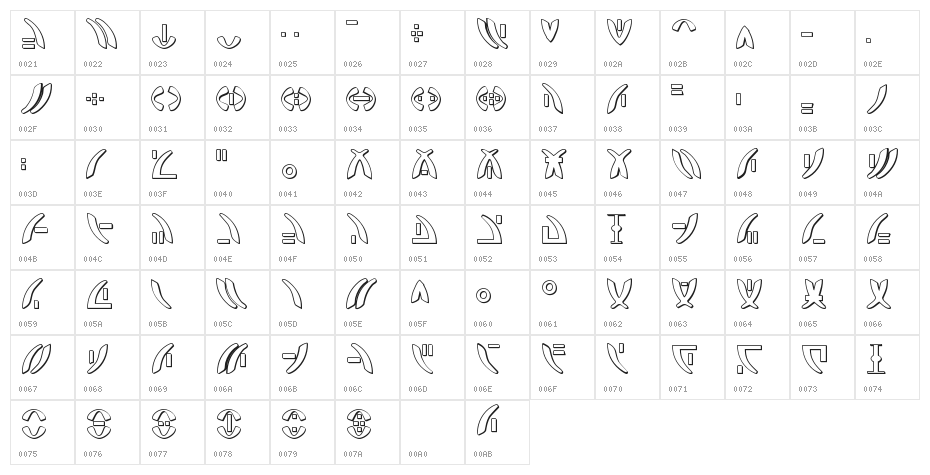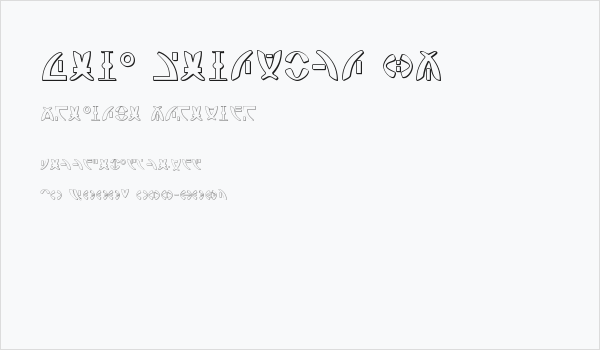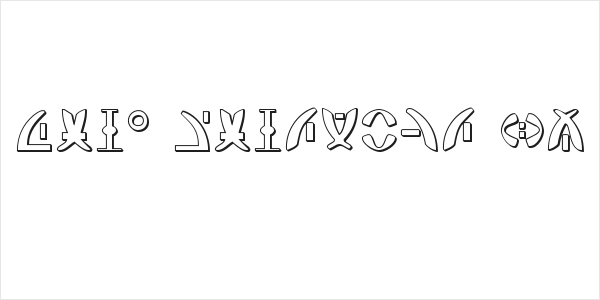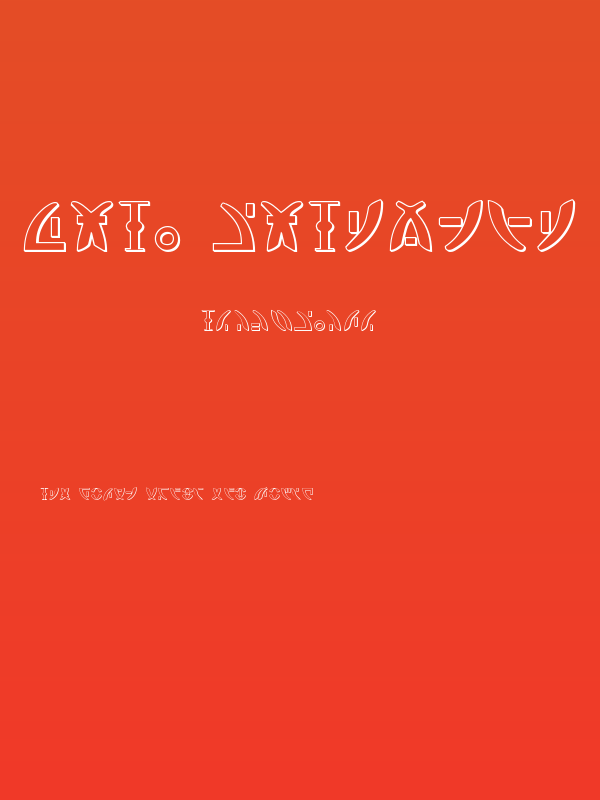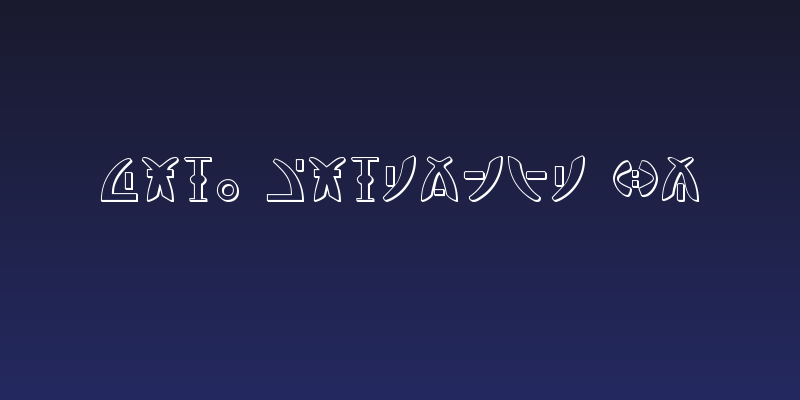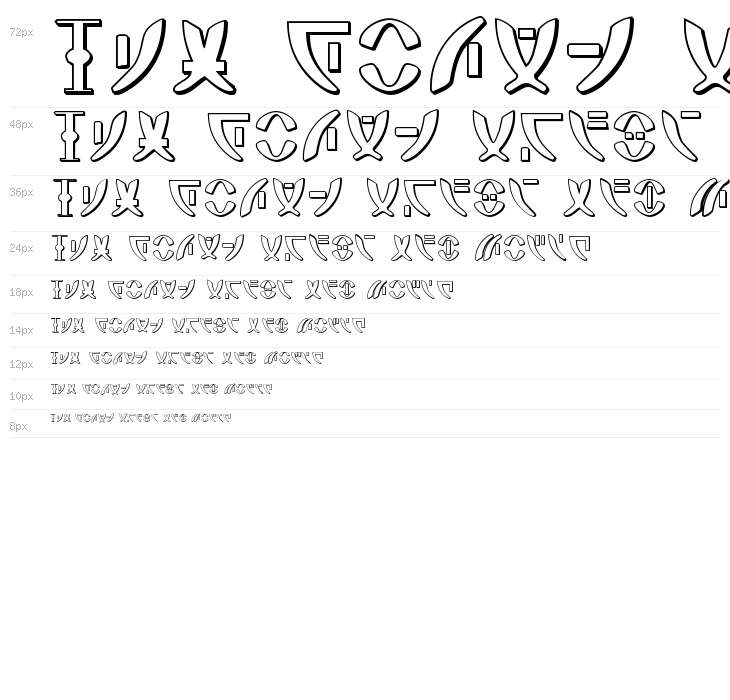
Zeta Reticuli 3D Font
Zeta Reticuli 3D Description
This font features a highly decorative and abstract design, characterized by its unique and futuristic appearance. Each character is crafted with intricate geometric shapes and curves, creating a sense of mystery and otherworldliness. The font's style is reminiscent of alien or sci-fi themes, making it stand out with its bold and unconventional forms. The characters are outlined, giving them a three-dimensional effect that enhances their visual impact. This font is not designed for readability in large blocks of text but rather for artistic and decorative purposes.
| Overall Style | Futuristic, Decorative |
| Use Case | Logos, Titles, Posters |
| Proposed Projects | Ideal for sci-fi themed projects, video game titles, movie posters, or any creative work requiring a unique and otherworldly aesthetic. |